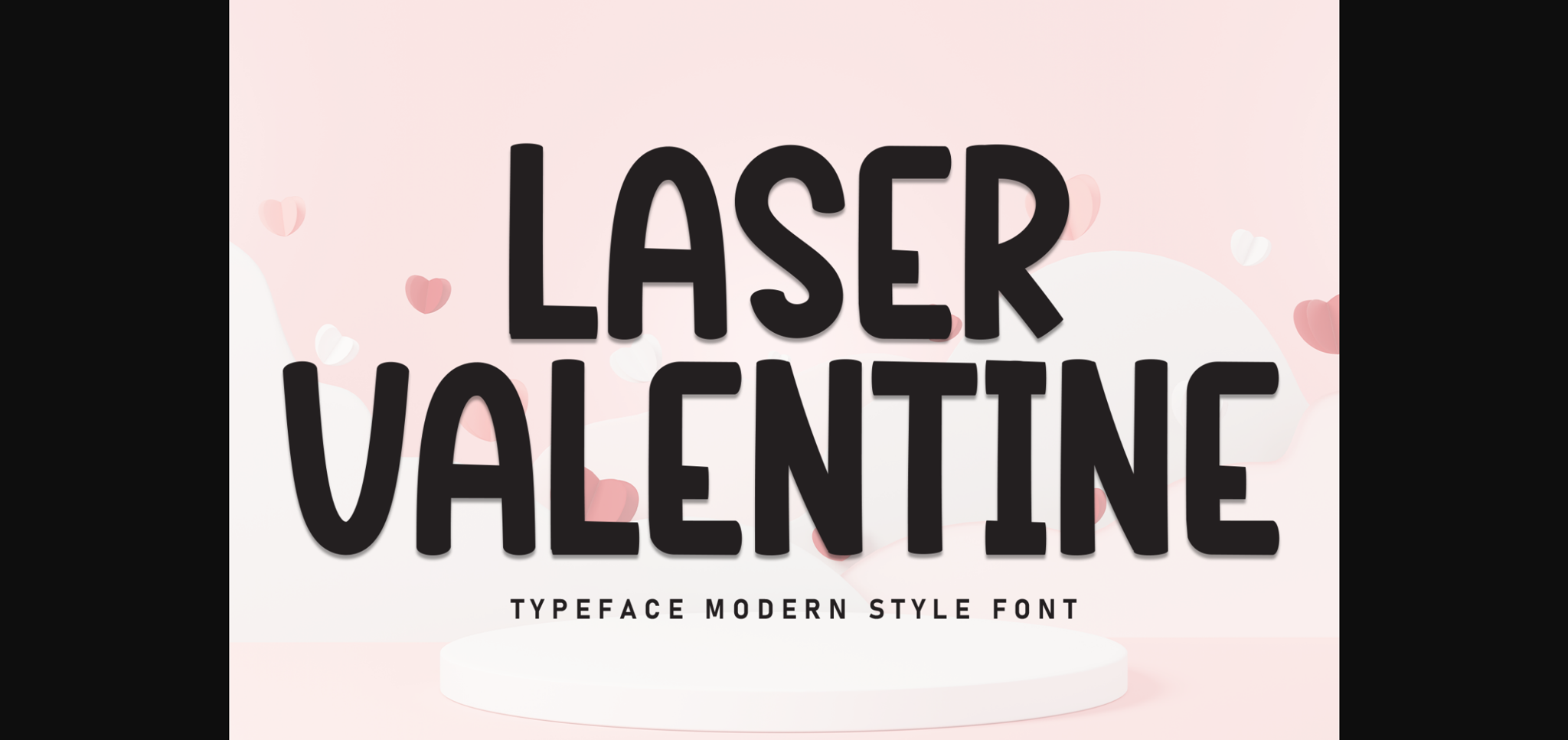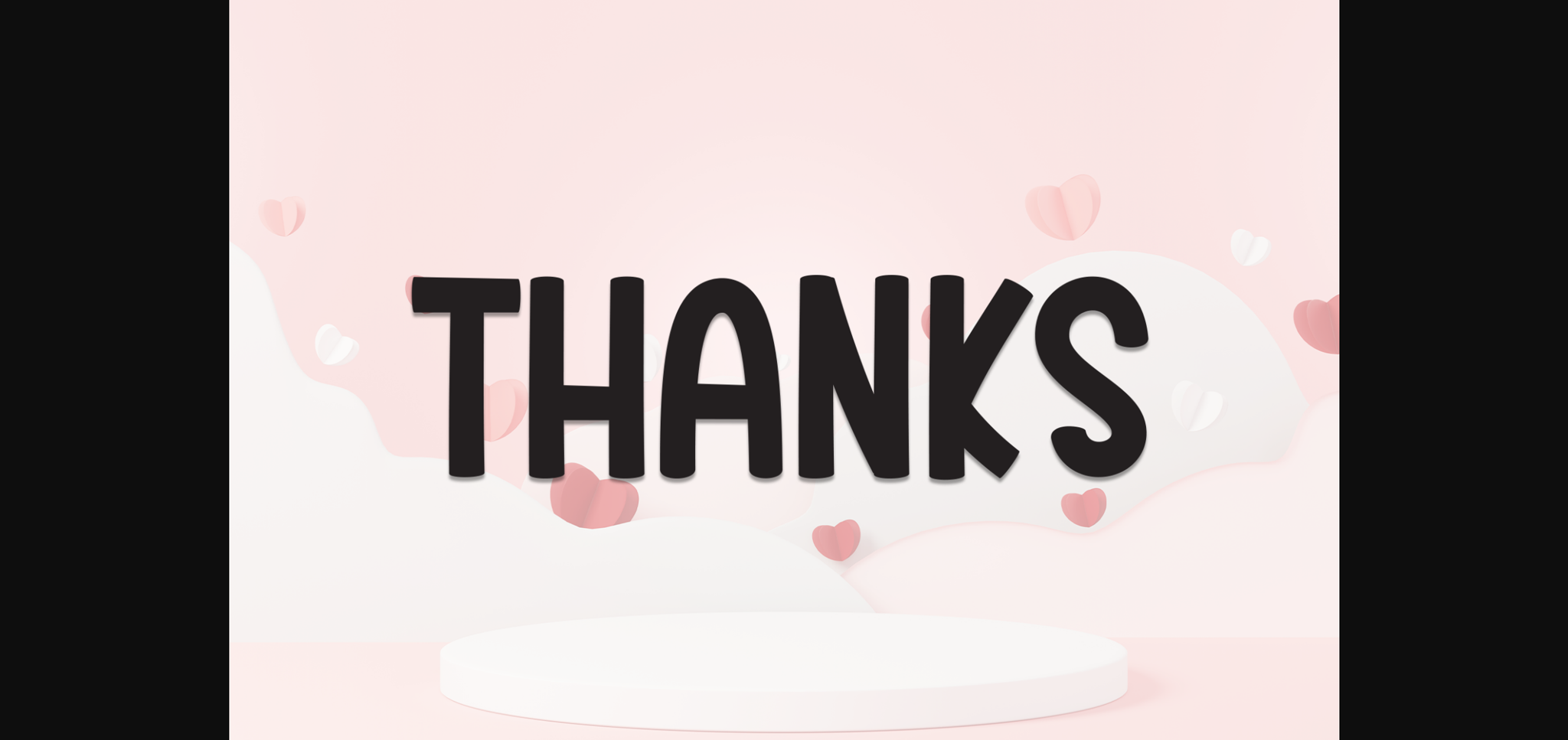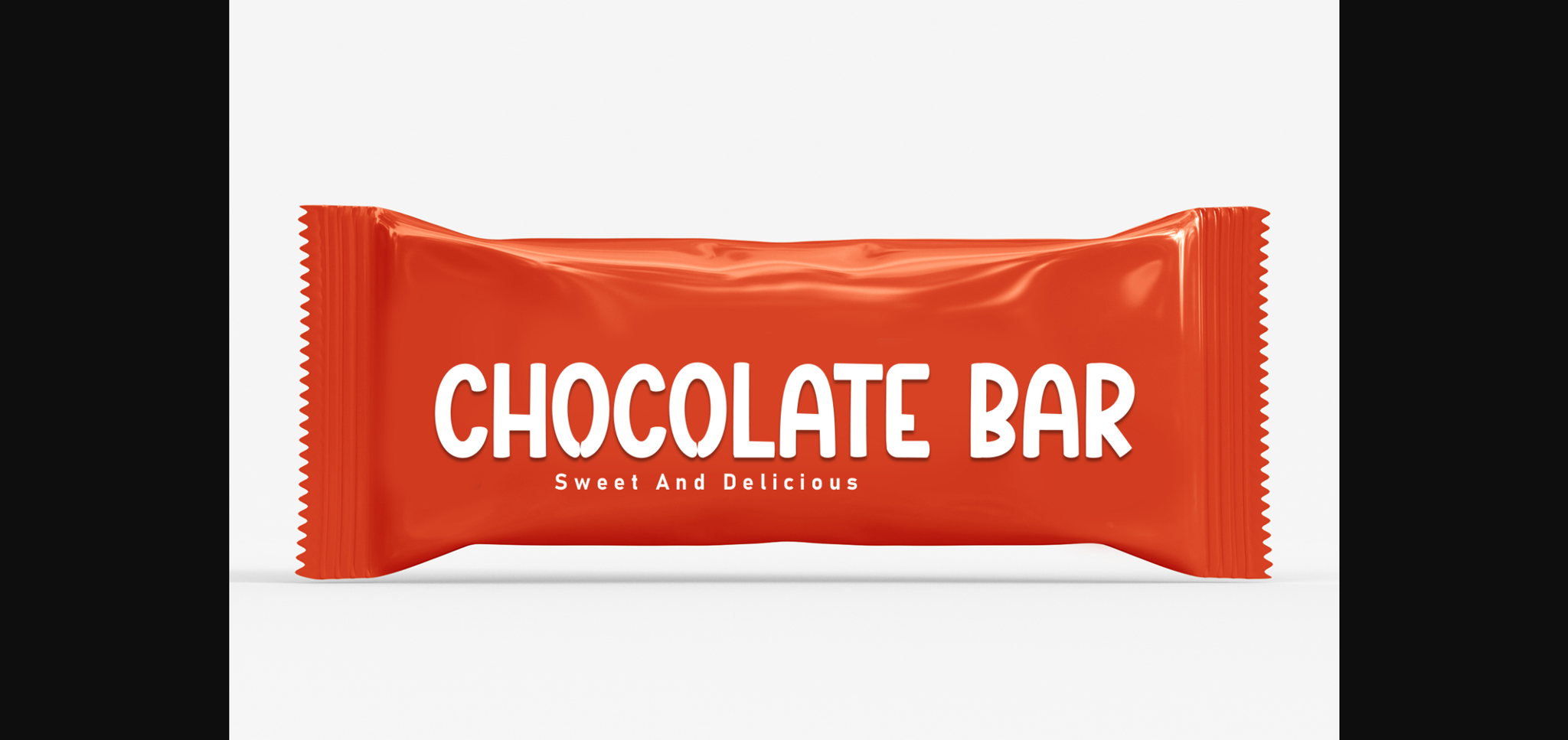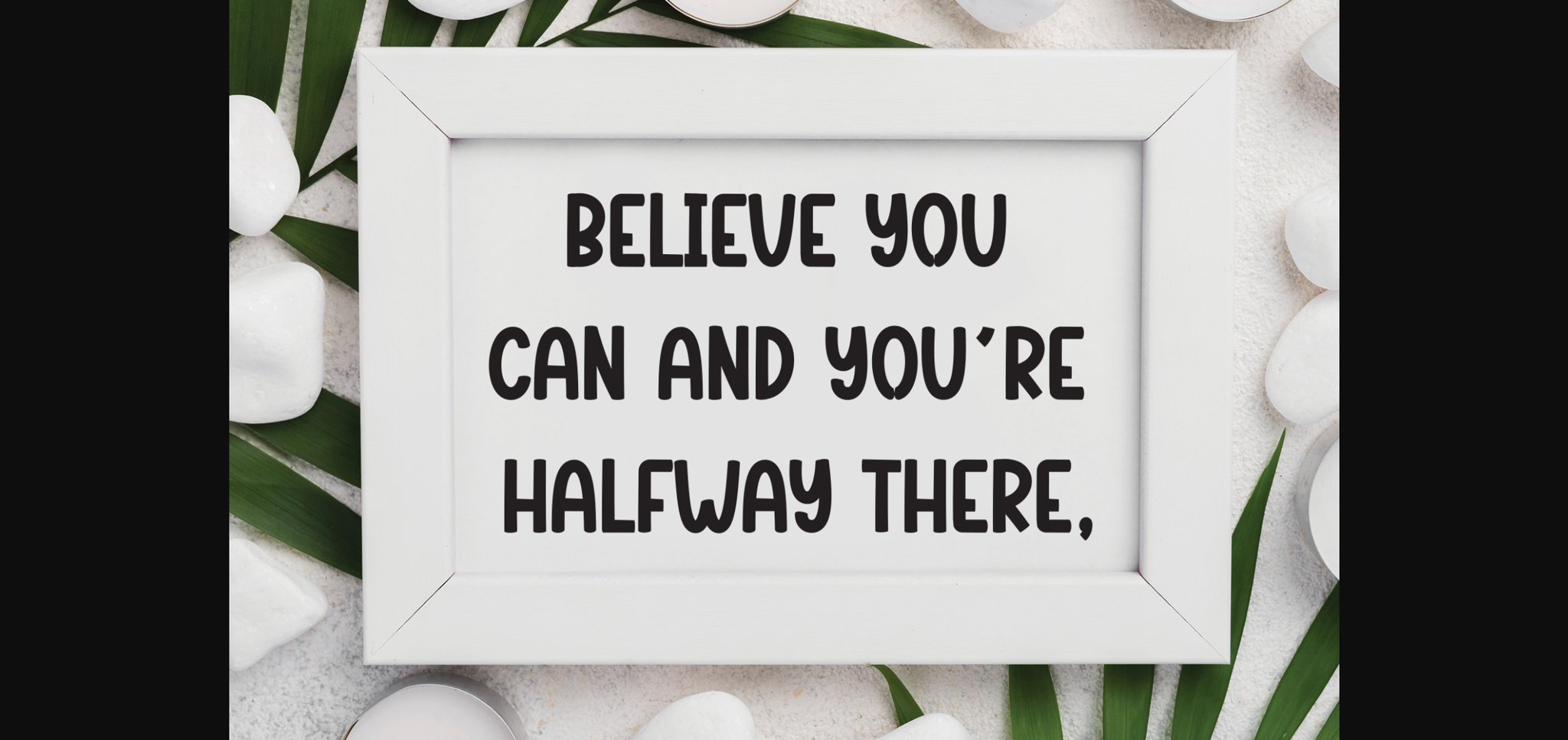
About Laser Valentine Font
Laser Valentine is a neat and casual sans-serif font that combines simplicity with a touch of warmth. With clean lines and balanced proportions, it exudes a friendly and approachable vibe. Perfect for various design projects, Laser Valentine brings a modern and versatile style to your typography repertoire.